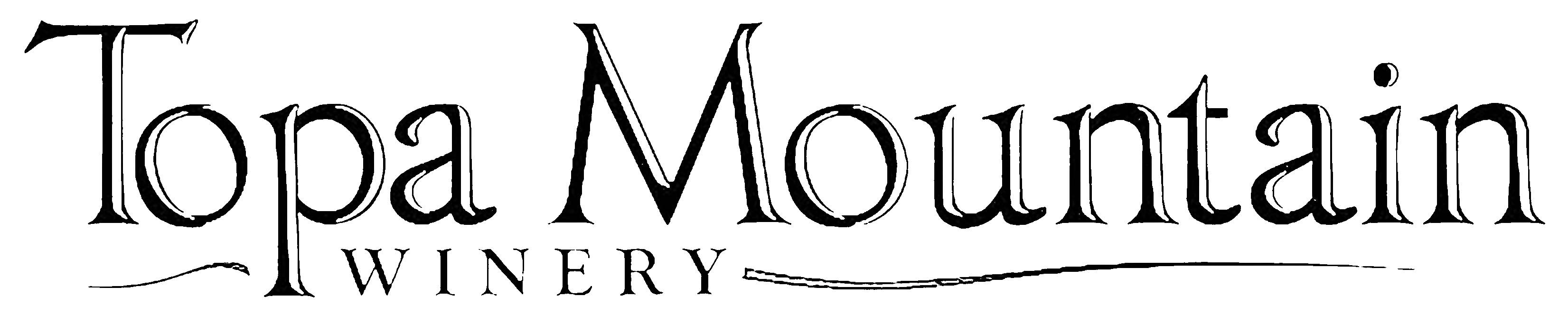
I think it might be some type of Garamond, but I can’t find an exact match.
The “chisel” feature is not needed.
I think it might be some type of Garamond, but I can’t find an exact match.
The “chisel” feature is not needed.
Anavio Regular with beveling effects from Photoshop or other program.